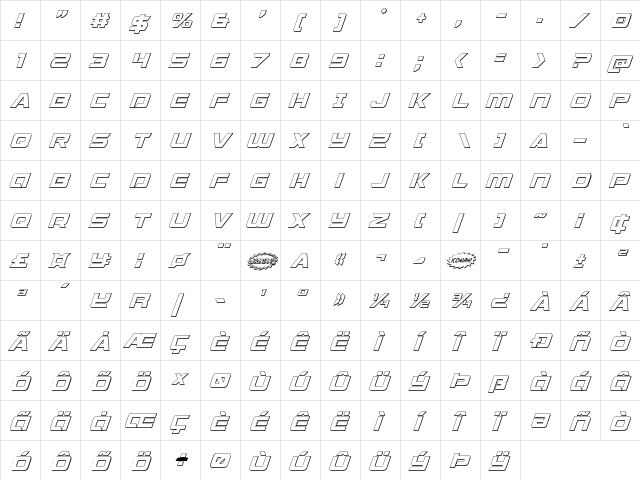
Starduster 3D Italic Italic
Design Context for Starduster 3D Italic Typeface
Starduster 3D Italic is a composed and adaptable typeface that performs quietly and consistently across a wide range of design contexts. The slanted form adds forward momentum and visual energy.
Pro Tip: Use Starduster 3D Italic for emphasis, pull quotes, and subheadings where its slanted energy can add rhythm to the layout.